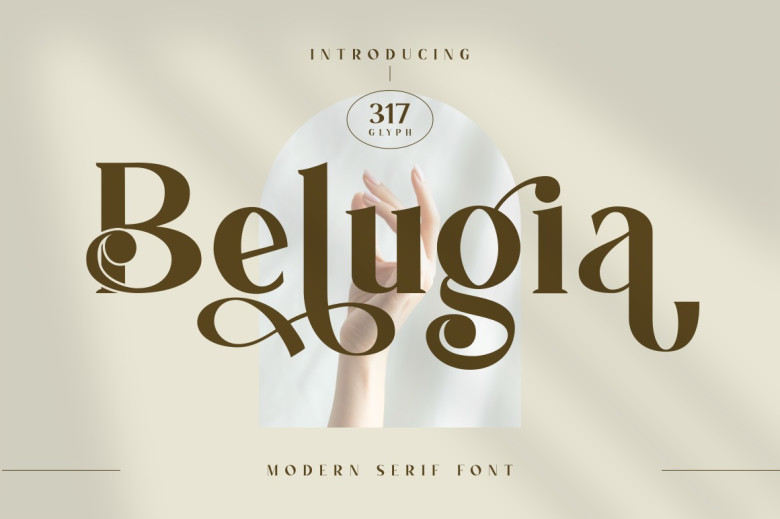
Belugia Font
Belugia is a serif font that combines thick and thin strokes that contrast mechanical in the glyphs and is made with a straight line structure and smooth curves. This is a result of the font professional and elegant, and there are alternate letters and ligatures.
Belugia Serif Font